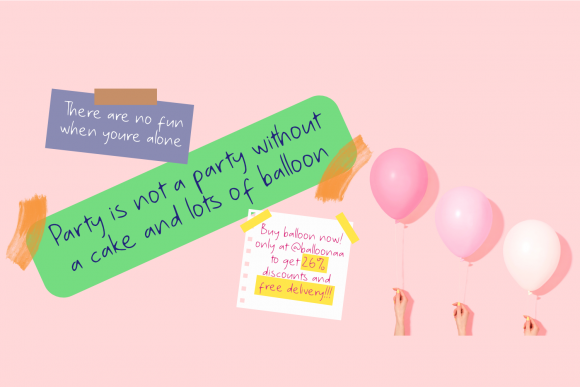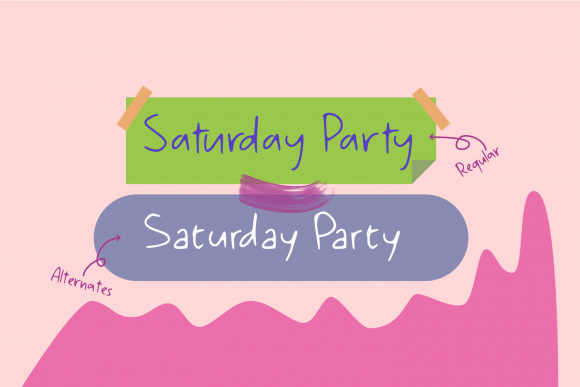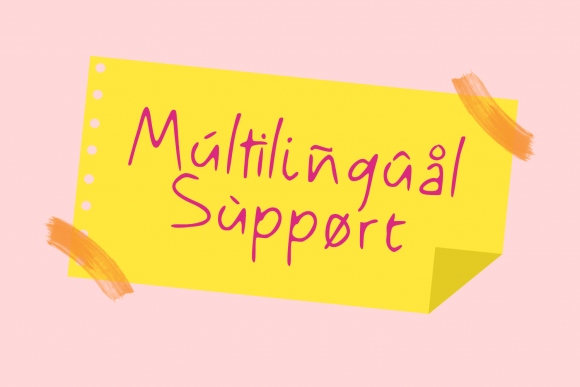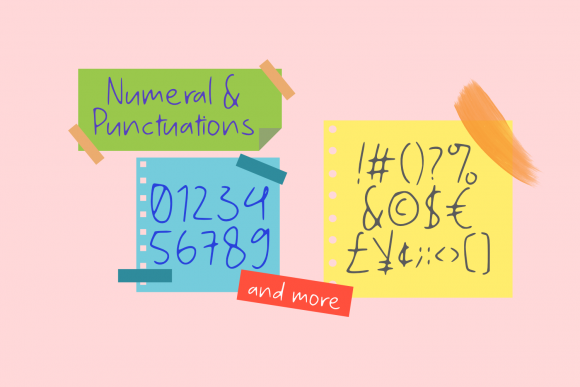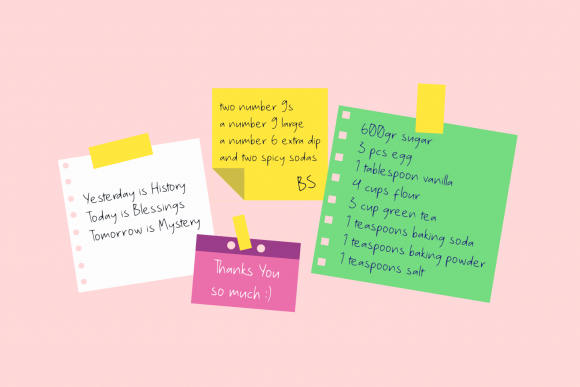
Introduction to Saturday Party Font
Saturday Party is a cool, readable and flexible handwritten font.
Natural and trendy, this font will turn each of your project ideas into real works of art Have fun with this beautiful font and explore its endless variations.
Key Features of Saturday Party Font
Why Choose Saturday Party Font?
Saturday Party Font offers exceptional quality and versatility, making it a valuable addition to your design toolkit. Whether you’re creating for personal projects or commercial use, Saturday Party Font delivers professional results.